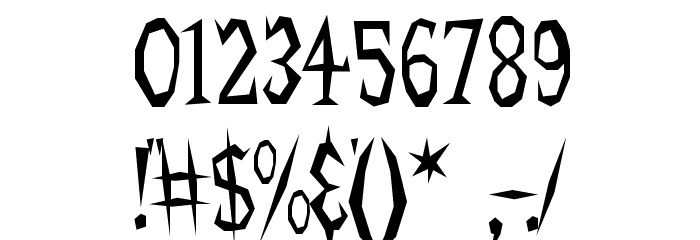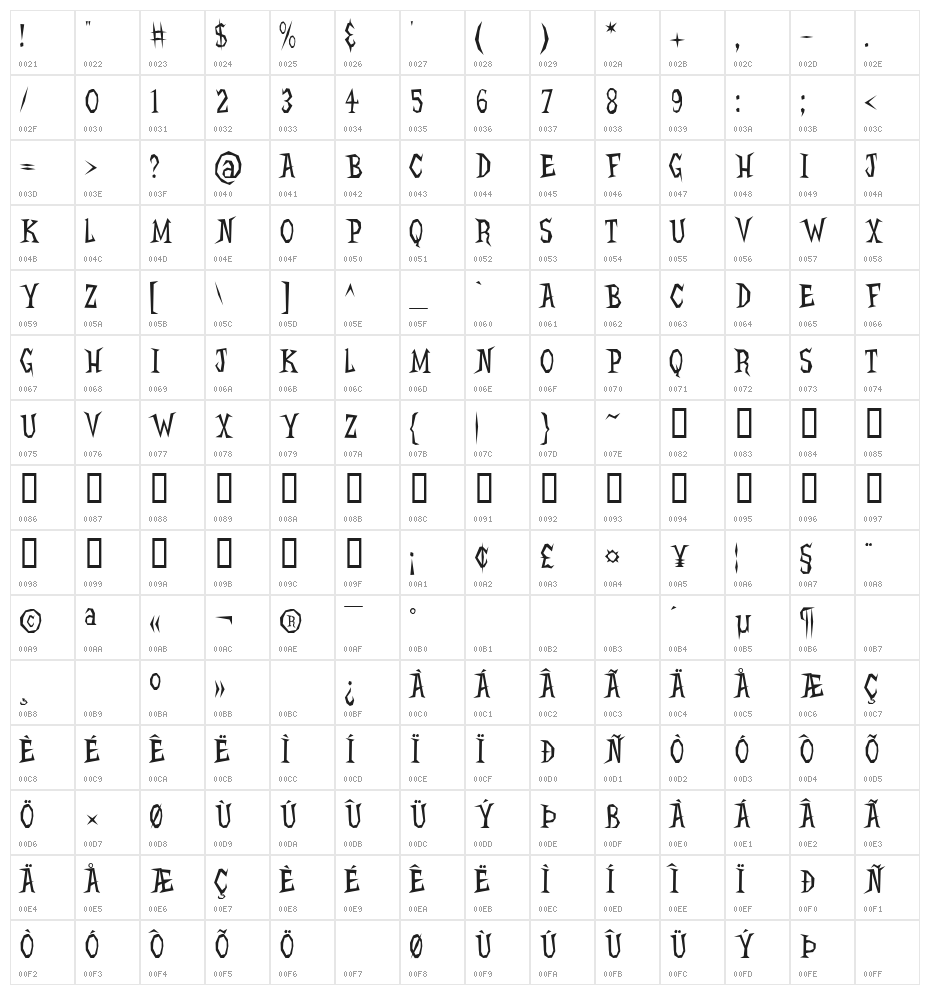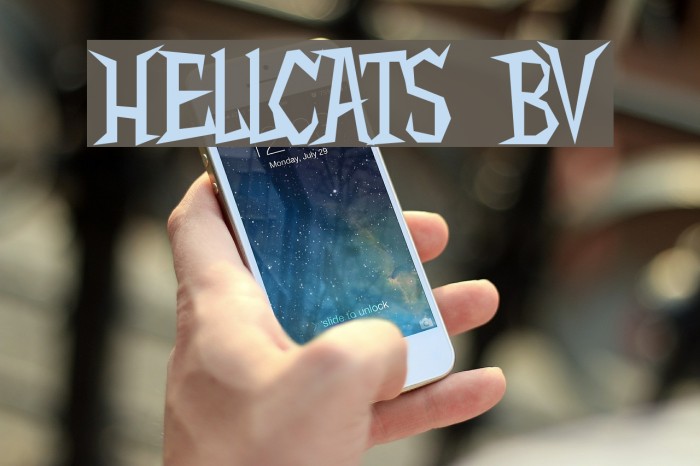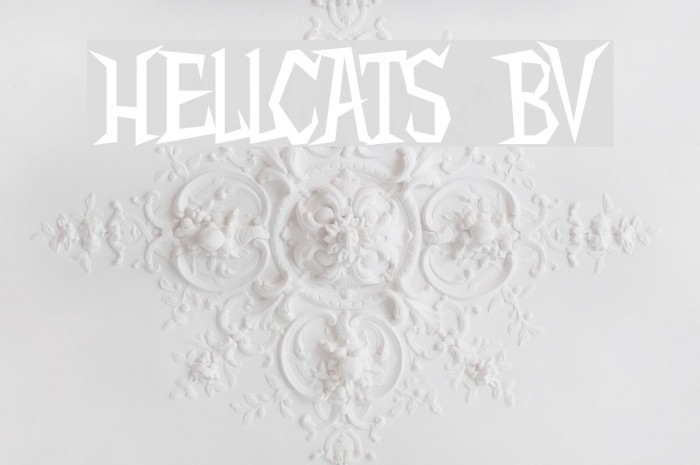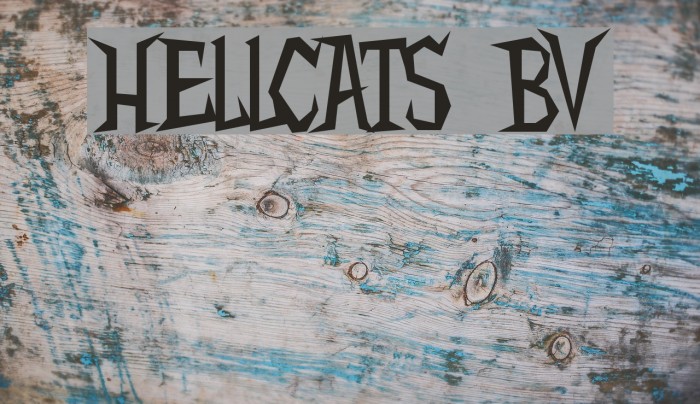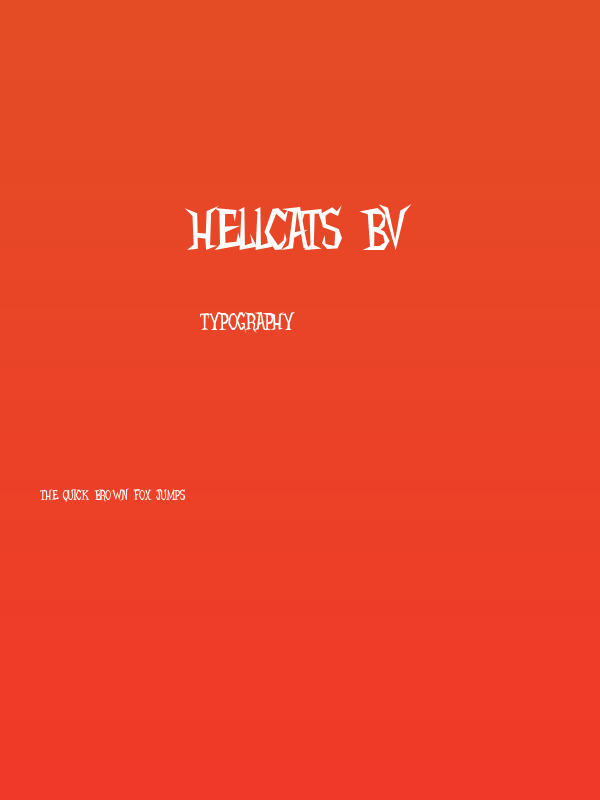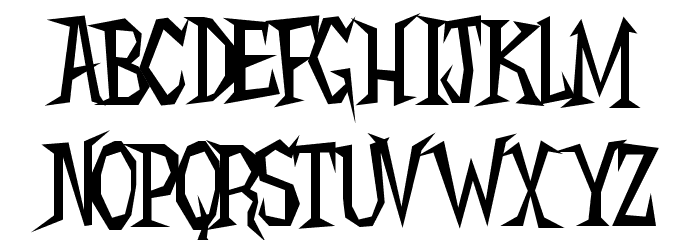
Hellcats BV Font
Hellcats BV Description
This font features a bold and edgy design with sharp, angular lines and a slightly aggressive aesthetic. The uppercase letters are particularly striking, with exaggerated serifs and a dynamic, almost jagged appearance. The lowercase letters maintain this bold style, providing a cohesive look across all characters. Numbers and special characters are equally distinctive, ensuring consistency throughout any text. This font's unique style makes it ideal for projects that require a strong visual impact.
| Overall Style | Modern, Edgy |
| Proposed Projects | Ideal for band logos, posters, video game titles, and edgy branding projects. |